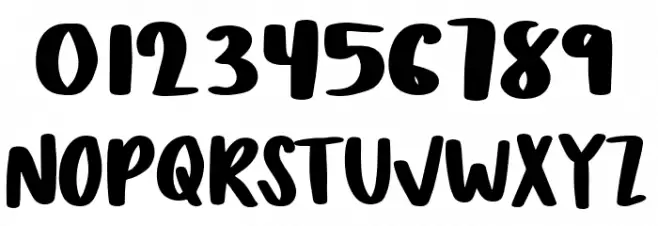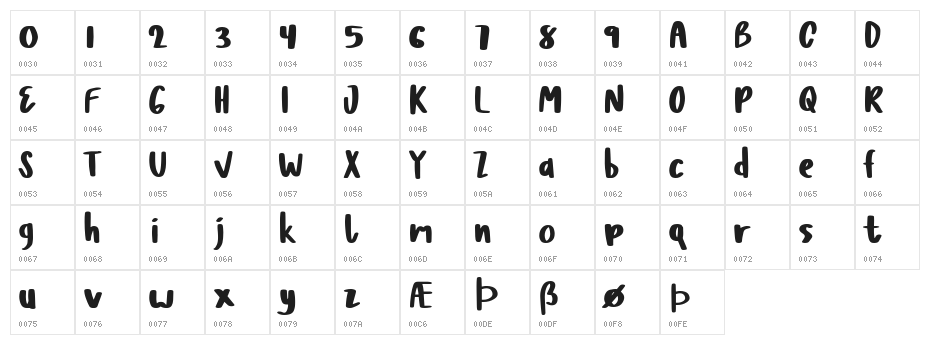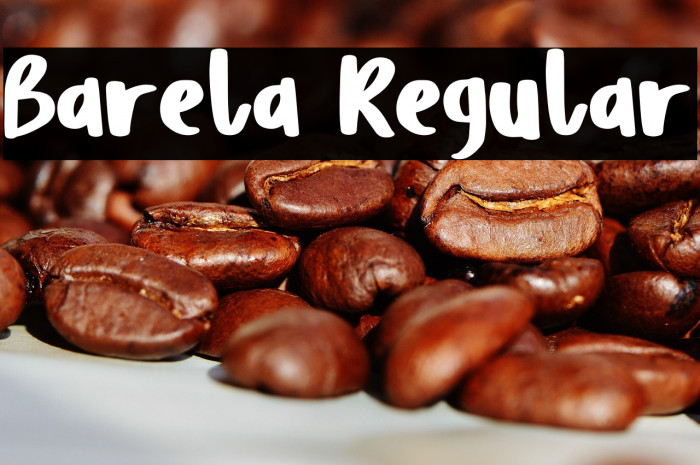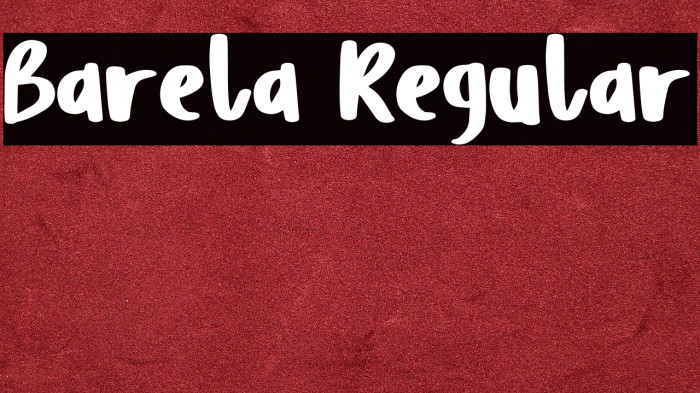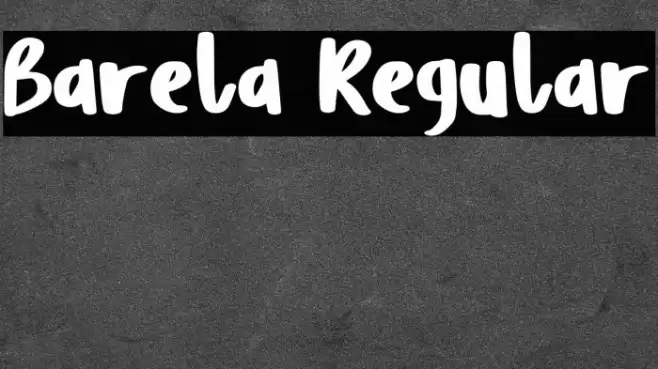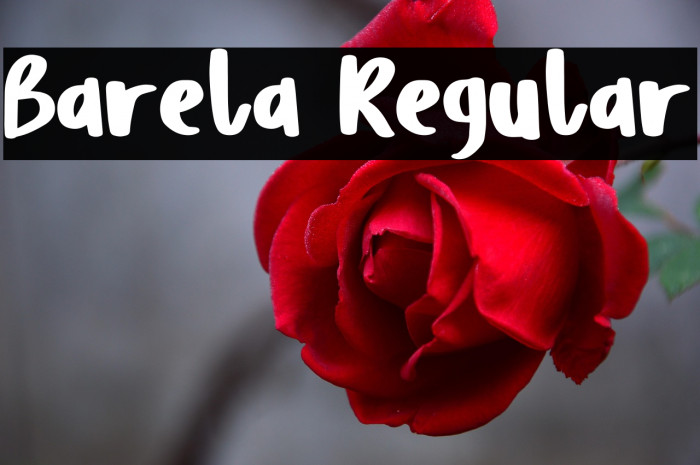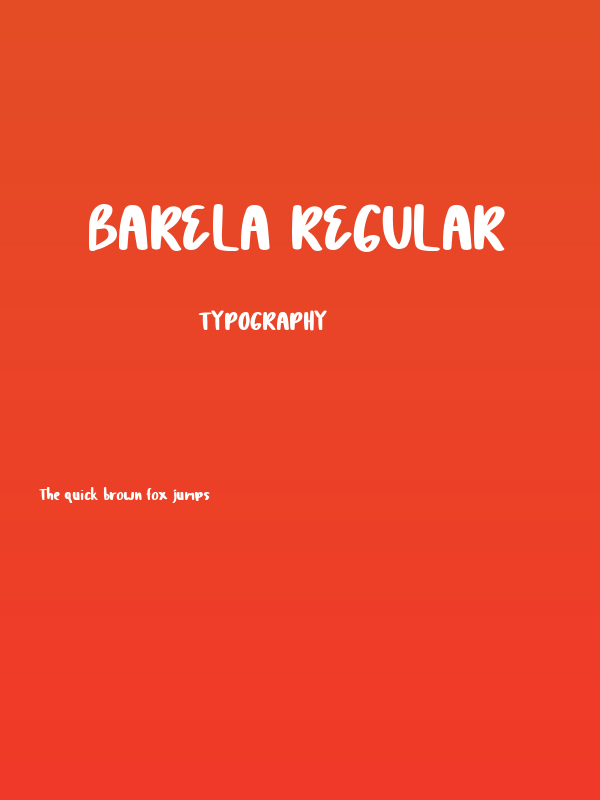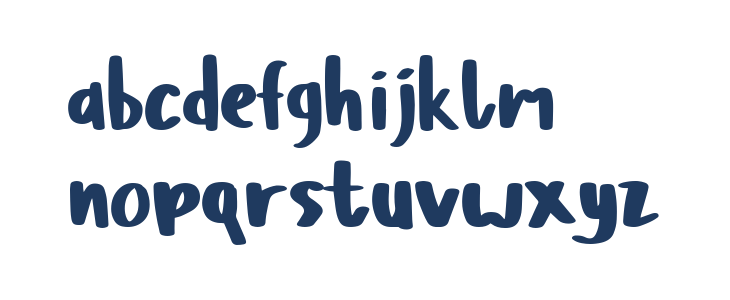
Barela Regular Font
Barela Regular Description
This font features a bold, handwritten style with a playful and energetic appearance. The characters are rounded and have a consistent thickness, giving them a friendly and approachable look. The uppercase and lowercase letters maintain a uniform height, while the numbers and special characters blend seamlessly with the overall design. The strokes are smooth and fluid, adding to the casual and informal vibe of the font. It's perfect for projects that require a personal touch or a sense of whimsy.